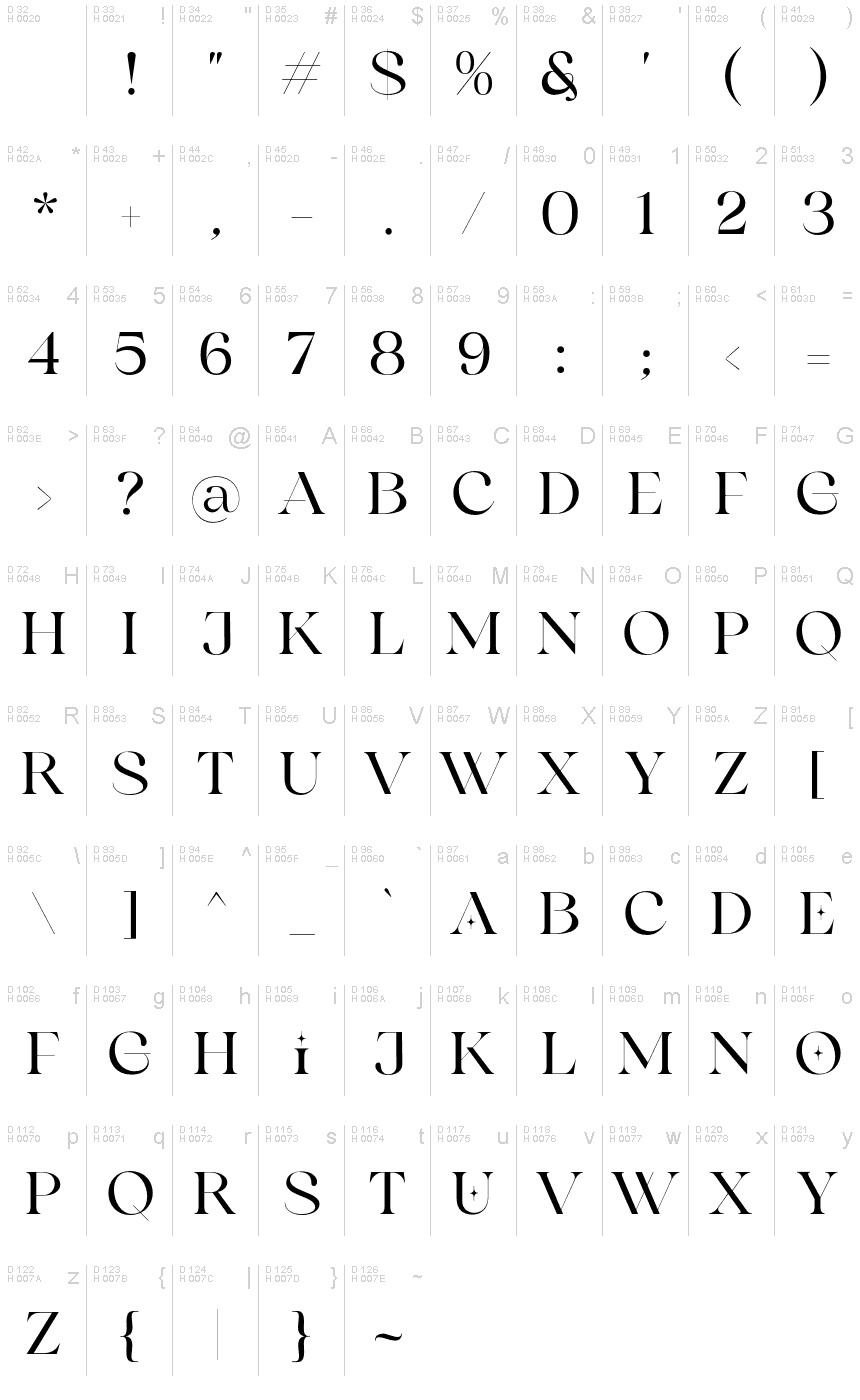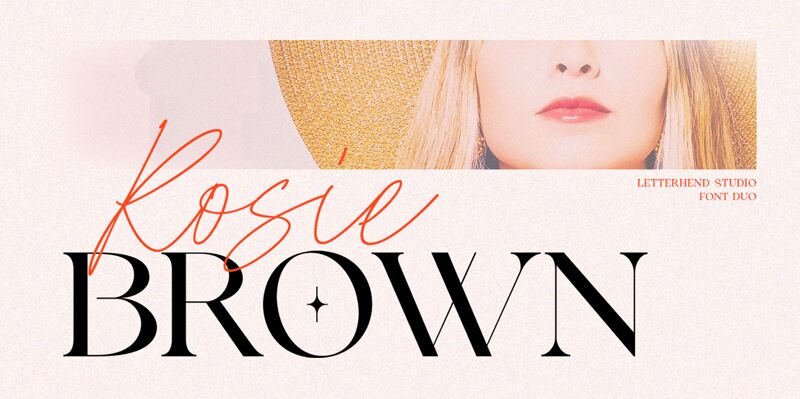
RosieBrownSerifDemo
Rosie Brown Serif, crafted by Letterhend Studio, is a sophisticated serif font that exudes elegance and charm. With its semi-expanded width, this typeface adds a touch of modernity to traditional designs.
Ideal for branding projects, Rosie Brown Serif lends itself beautifully to luxury fashion labels, high-end beauty products, and upscale hotel identities. Its timeless appeal makes it equally suitable for editorial layouts, book covers, and classy wedding invitations.
Embrace the versatility of Rosie Brown Serif to elevate your designs with its refined aesthetic and impeccable legibility.